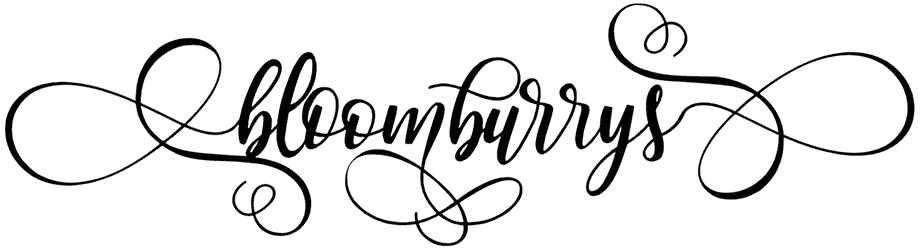
Bloomburrys Font
Bloomburrys is a gorgeous, delicate calligraphy font that looks amazing in any kind of project with its natural feel. It has extra swashes in every single letter, which hold your hand and take you through the world of sweet love and dreams.
They can be difficult to read due to their complicated style, so make sure before downloading. This Chicano font is perfect for wedding invitations, book covers, signatures, branding, or any designs that need an upscale hand-drawn touch.